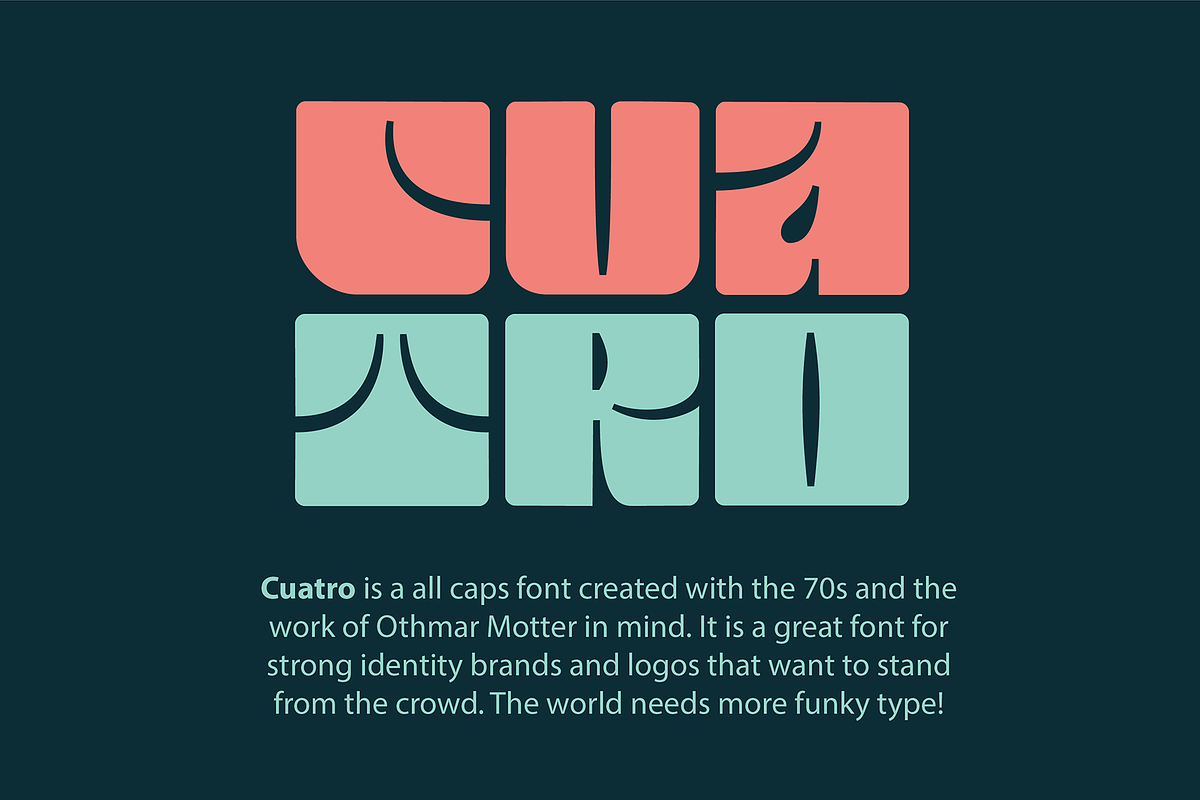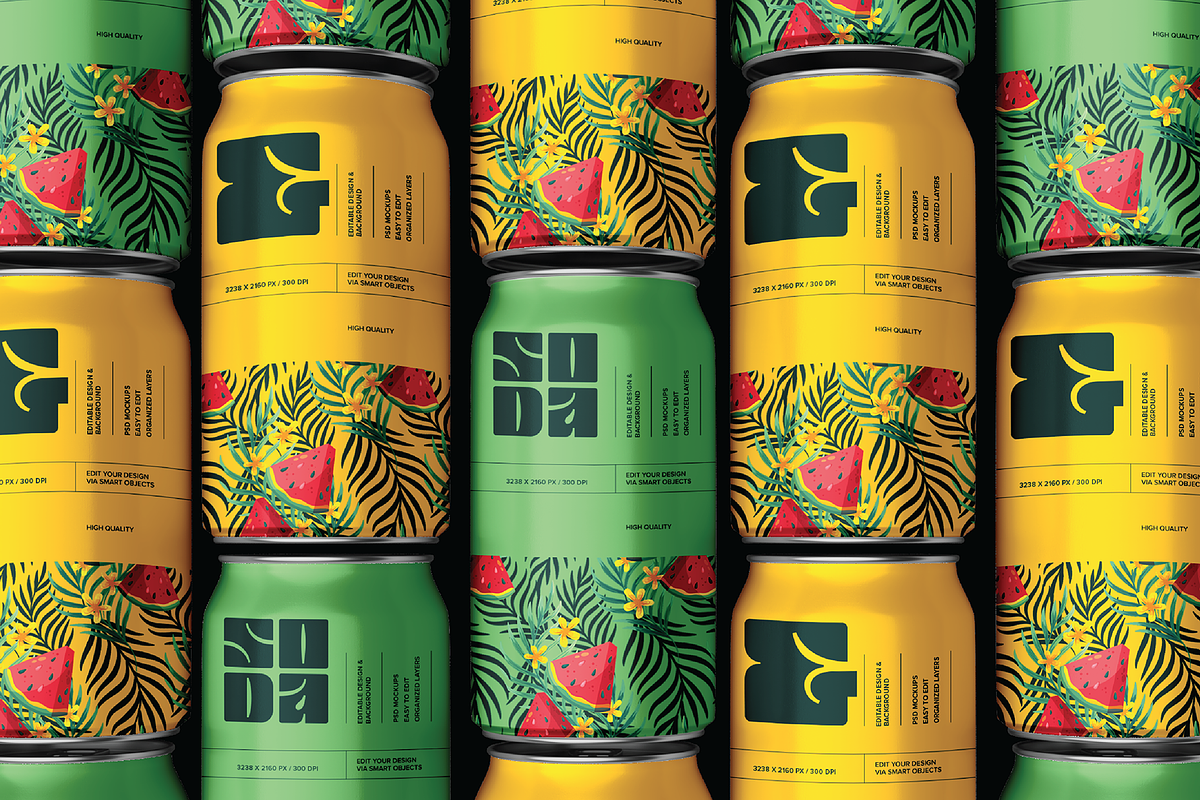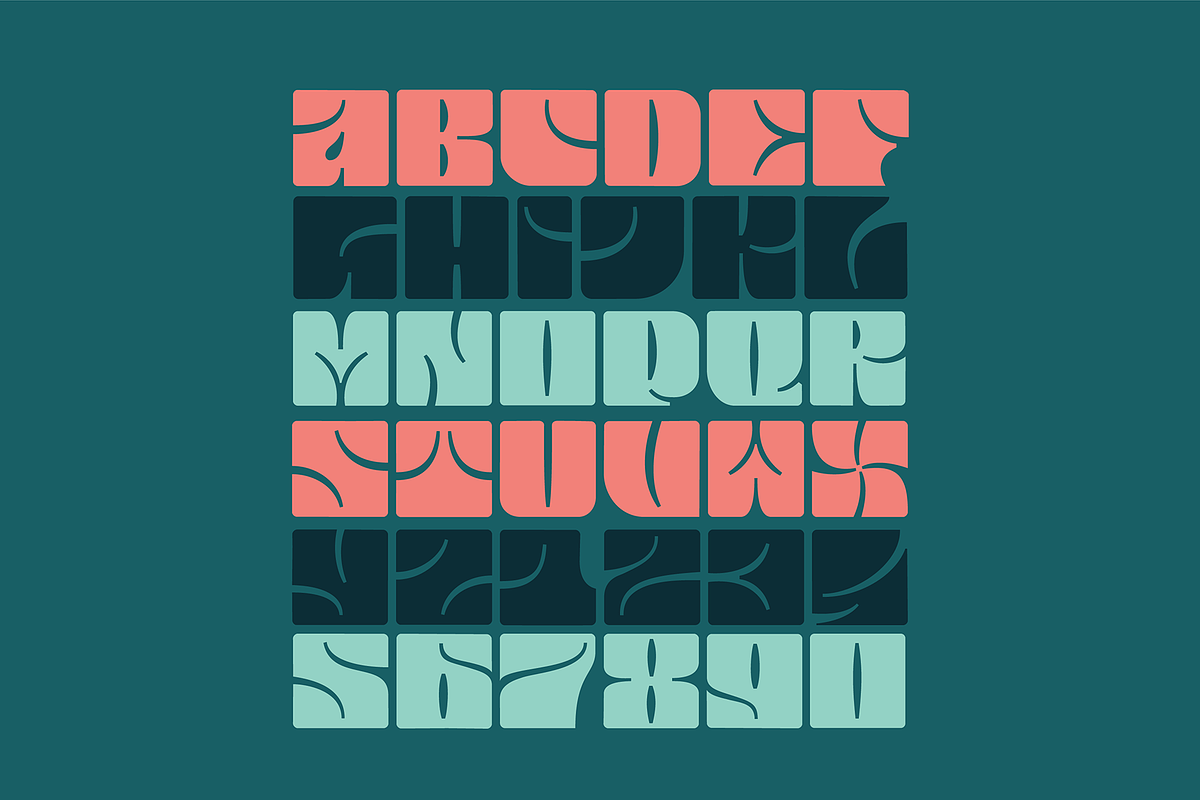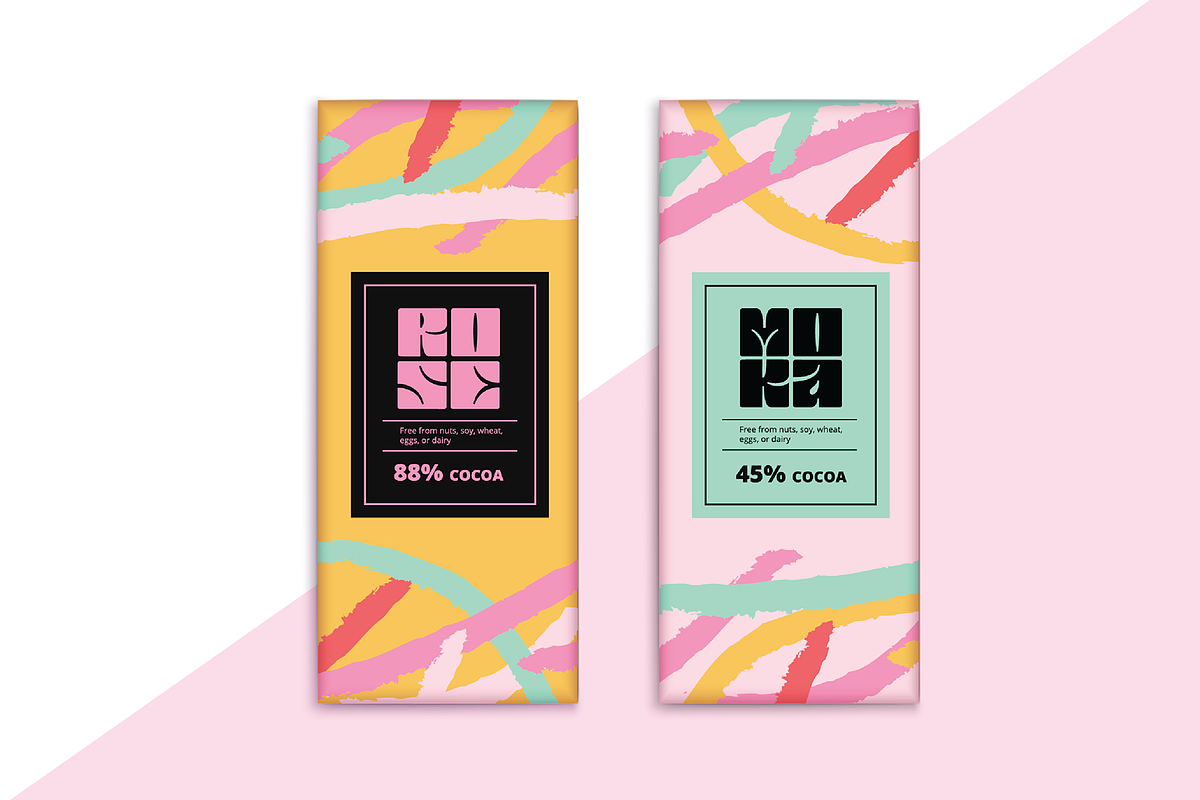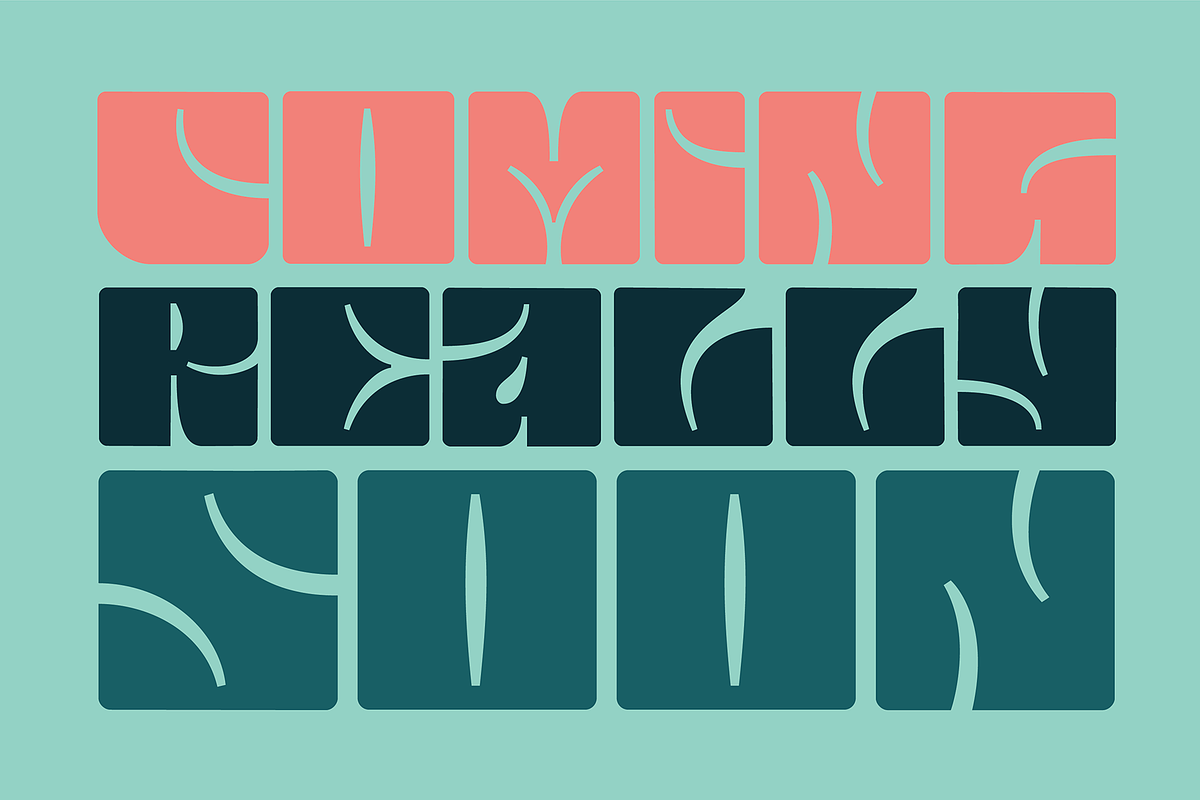
Cuatro is a all caps font created with the 70s and the work of Othmar Motter in mind. It is a great font for strong identity brands and logos that want to stand from the crowd. The world needs more funky type!